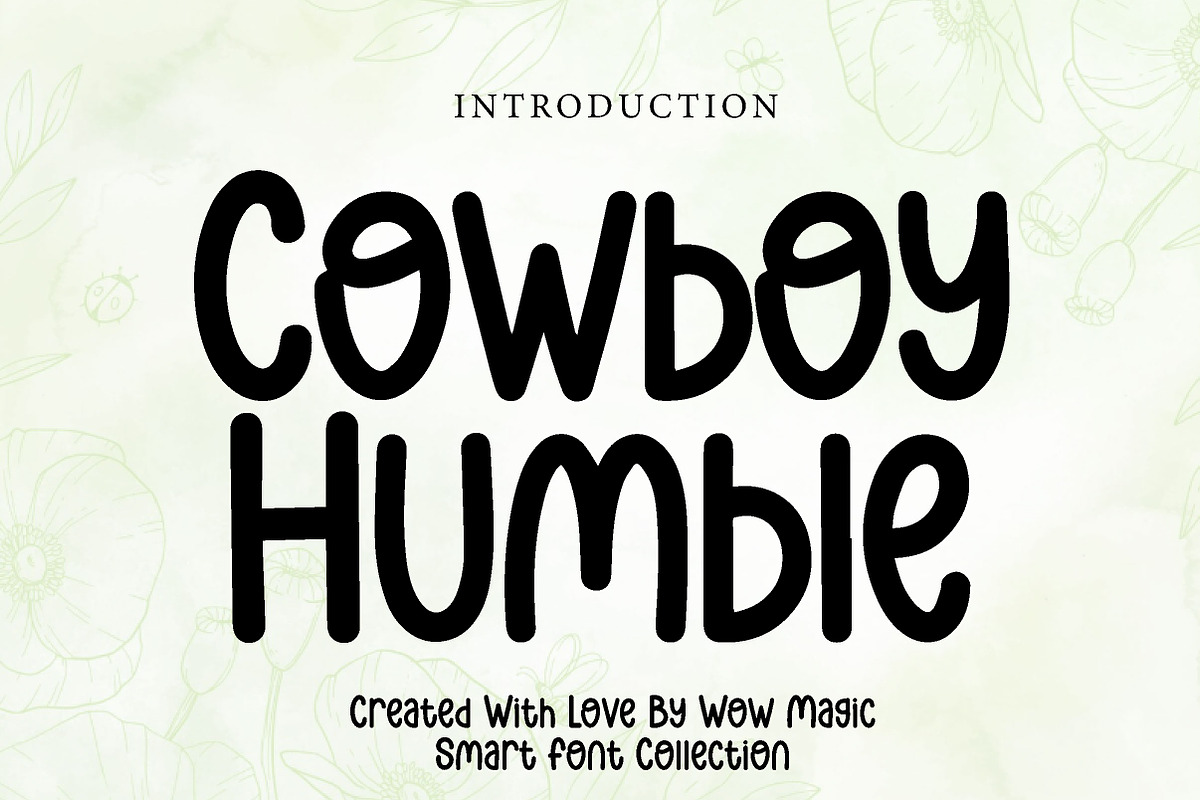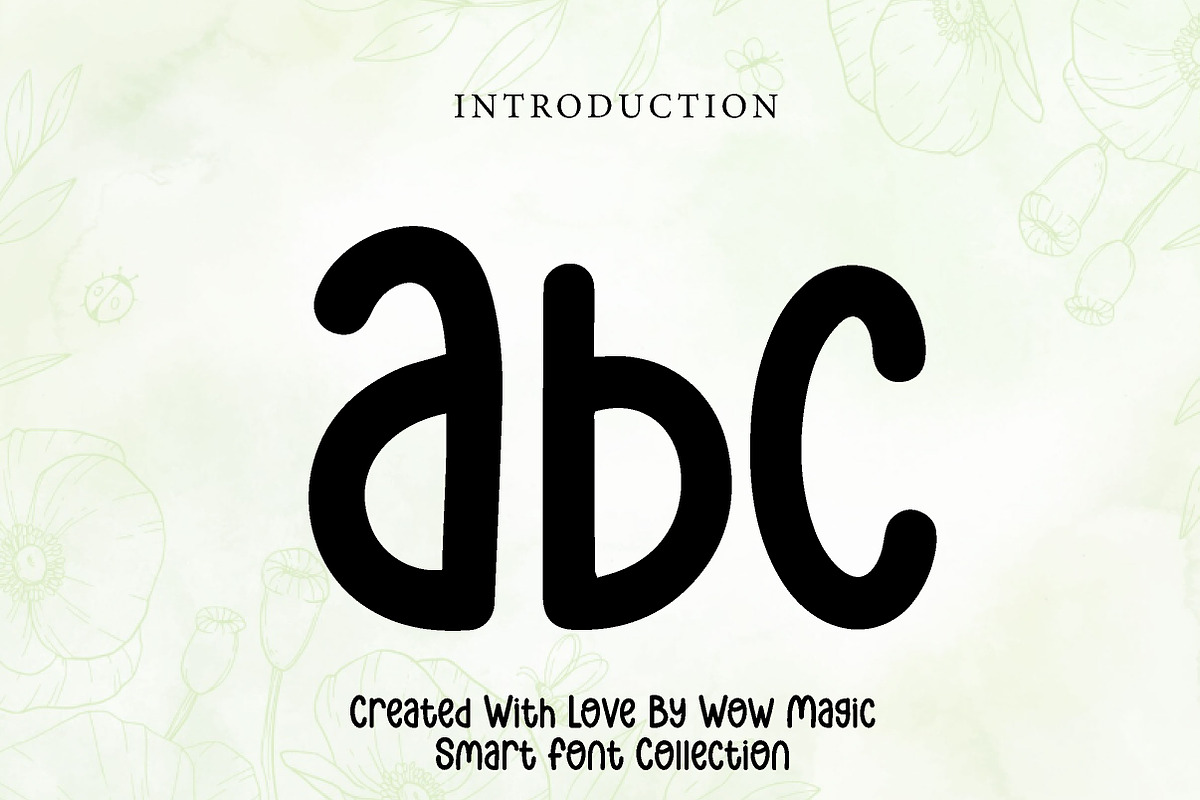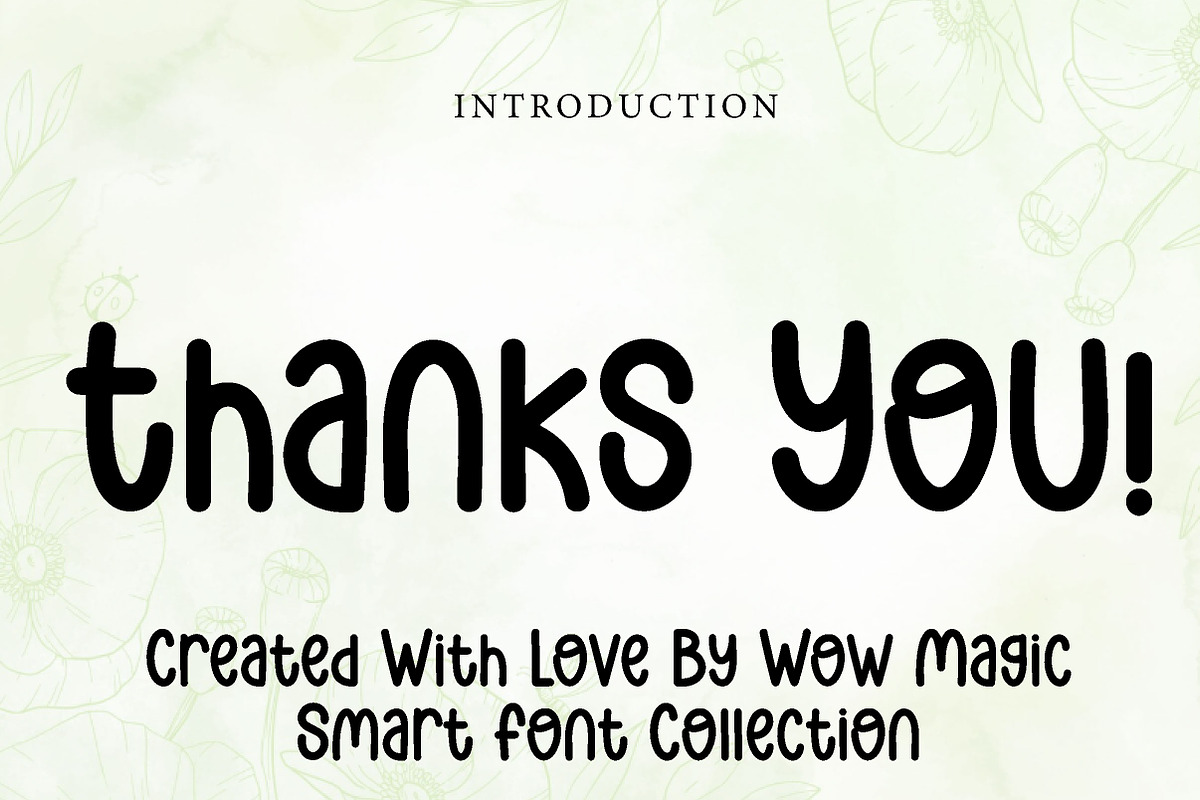
Cowboy Humble
Cowboy Humble – Playful Western Handwritten Font
Cowboy Humble is a fun, friendly, and playful handwritten font with a subtle western feel, perfect for kids designs, rustic branding, packaging, posters, and creative projects.
Cowboy Humble is a charming handwritten display font that blends playful personality with a soft western-inspired touch. With its rounded strokes, casual letterforms, and friendly appearance, this font creates a warm and approachable look that feels both fun and unique.
Its relaxed and slightly rustic style makes Cowboy Humble perfect for projects that need a cheerful yet natural vibe. Whether you are designing kids branding, western-themed graphics, product packaging, posters, social media content, stickers, or creative logos, this font helps your typography stand out in a simple and memorable way.
The smooth handwritten flow keeps your text easy to read while adding a handcrafted personality that feels genuine and inviting. Suitable for both print and digital use, Cowboy Humble is a great choice for designers who want a font that feels playful, rustic, and full of character.
Perfect For Western-themed designs Kids branding Rustic packaging Posters and flyers Social media graphics Stickers and labels Cute logos and headlines Craft and DIY projects Casual branding Friendly typography layouts Font Features Uppercase letters Lowercase letters Numbers & punctuation Playful handwritten style Soft rounded shapes Subtle western character Perfect for display use